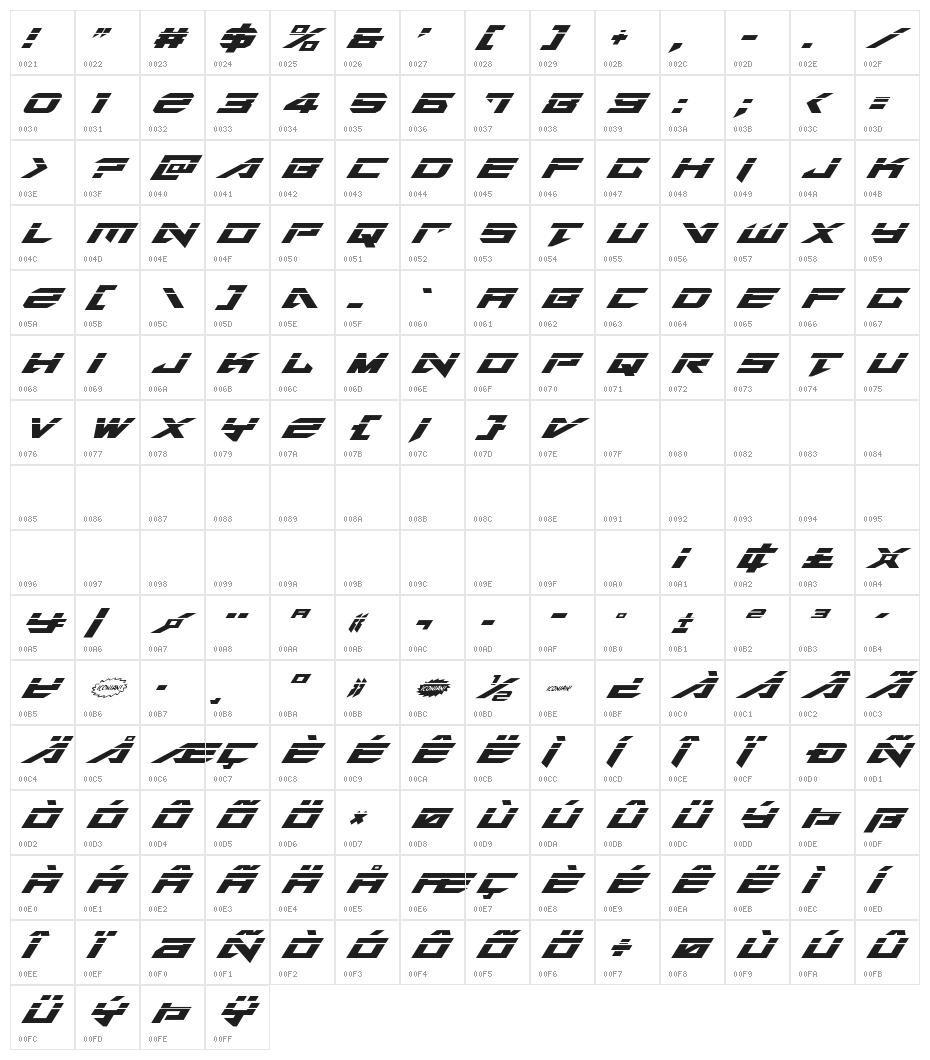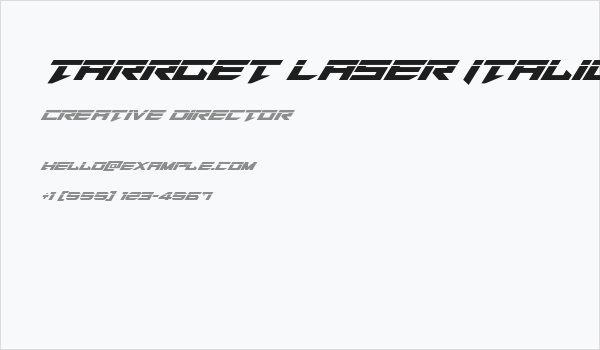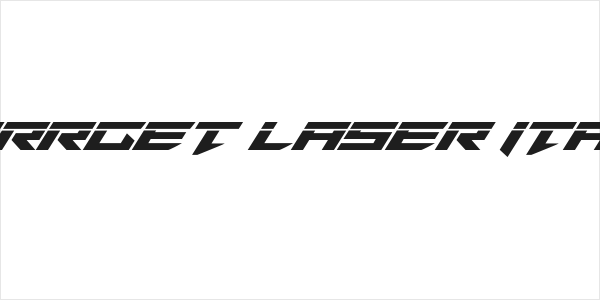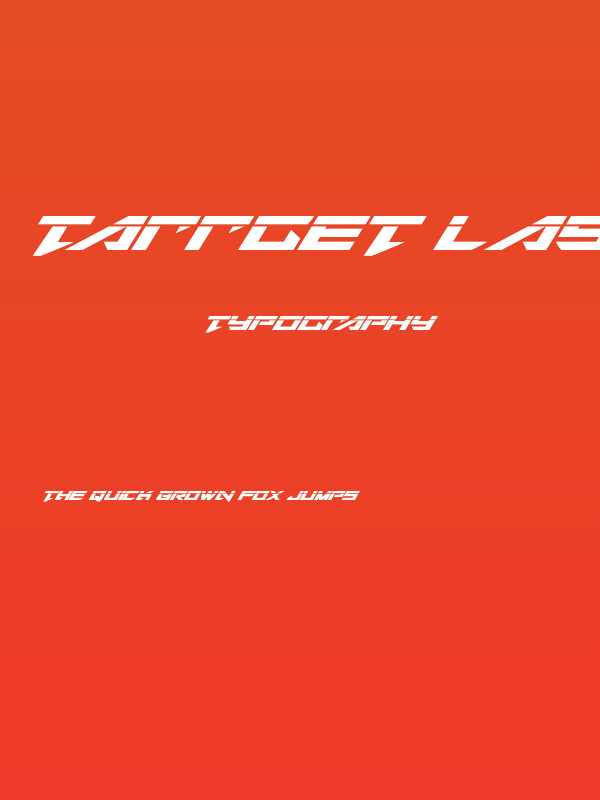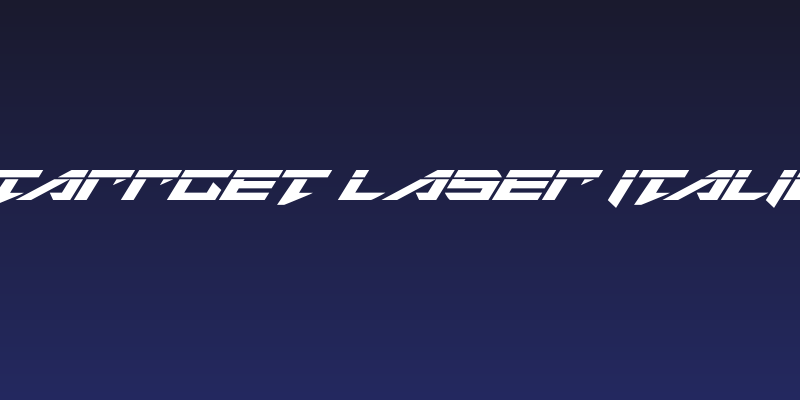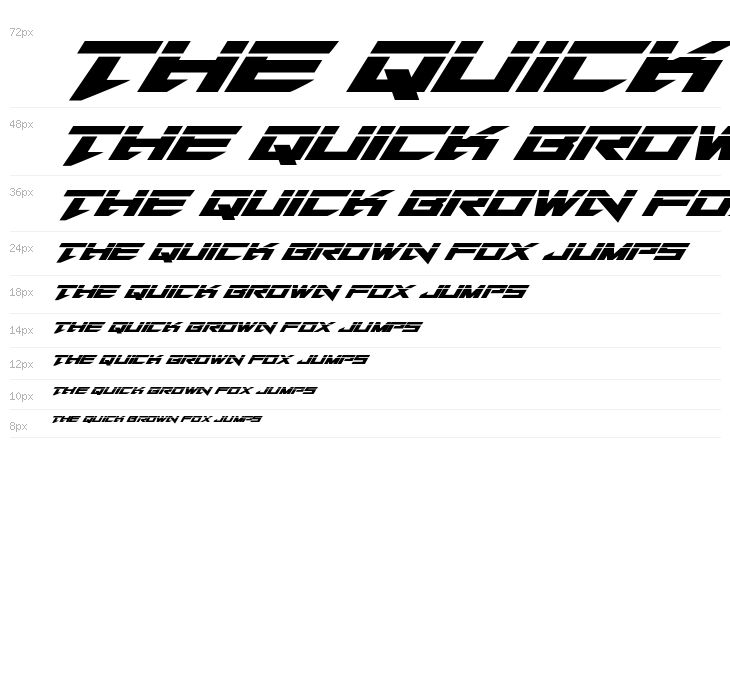
Tarrget Laser Italic Font
Tarrget Laser Italic Description
This font features a futuristic and dynamic design, characterized by sharp angles and a slanted, italicized style that conveys a sense of speed and motion. The characters are bold and geometric, with a distinct cut-out effect that adds to its modern and edgy appearance. The uppercase and lowercase letters maintain a consistent style, while the numerals and special characters complement the overall aesthetic. This font is ideal for projects that require a strong, impactful visual presence.
| Proposed Projects | Ideal for sci-fi themed designs, technology branding, video game titles, and sports team logos. |